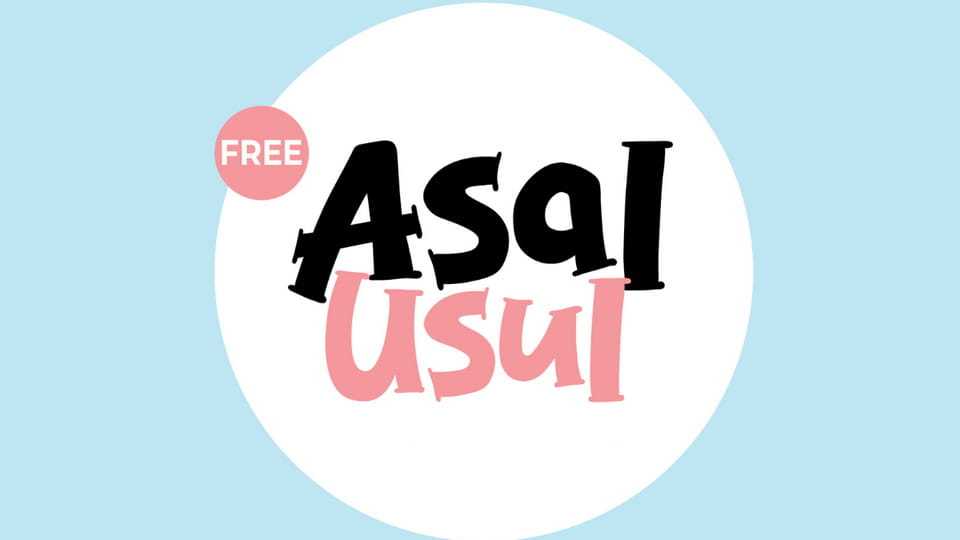
Download Asal Usul font, a bold display typeface inspired by vintage hand-drawn lettering and expressive typography. Its strong shapes, playful curves, and slightly irregular details create a unique handcrafted aesthetic